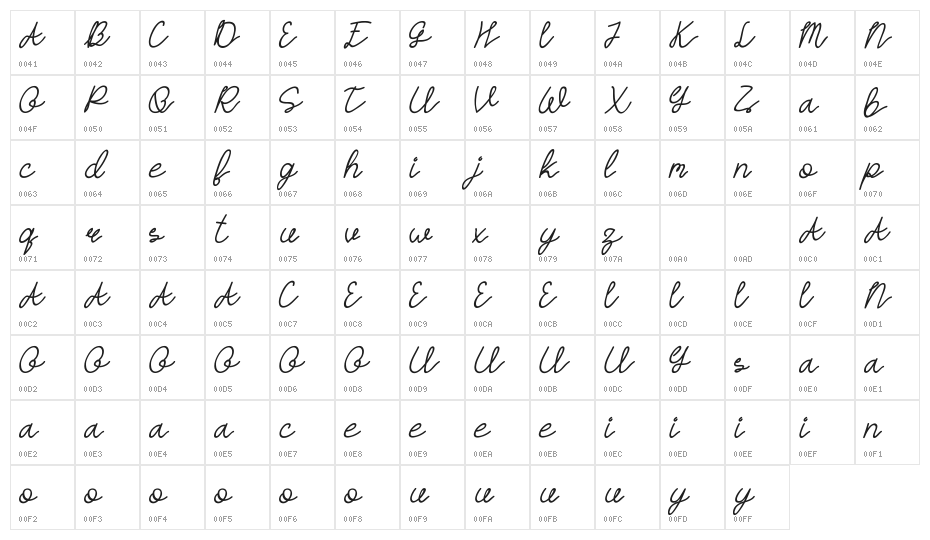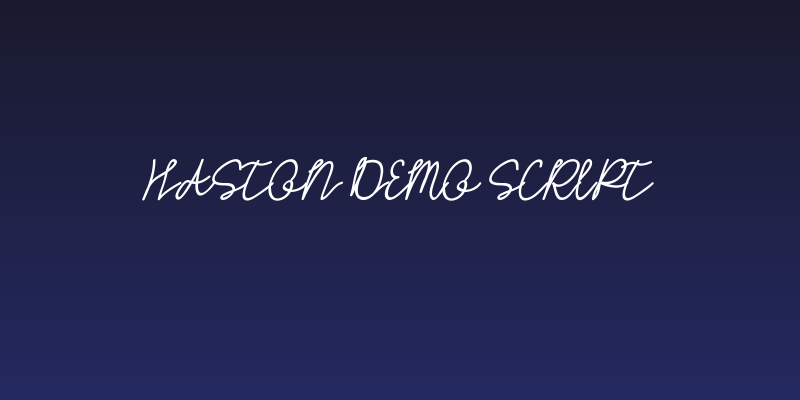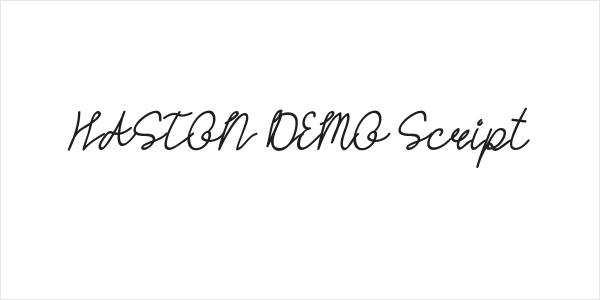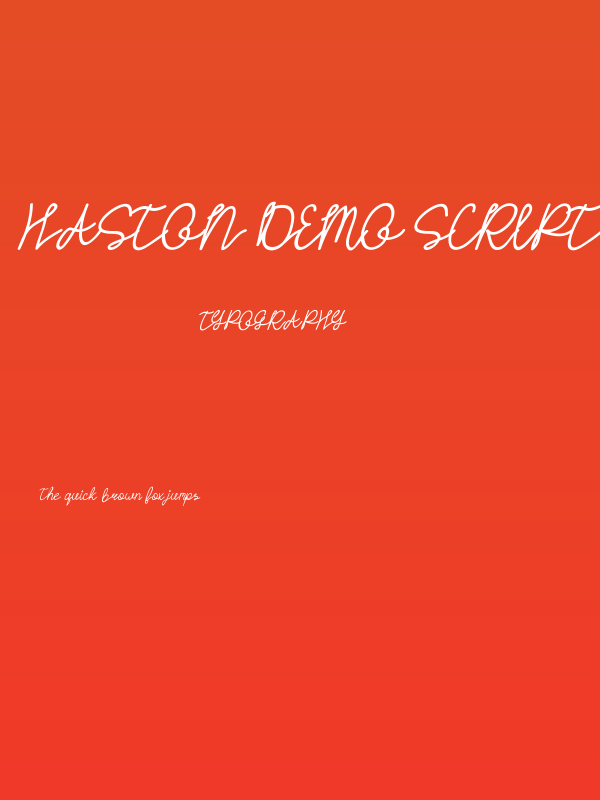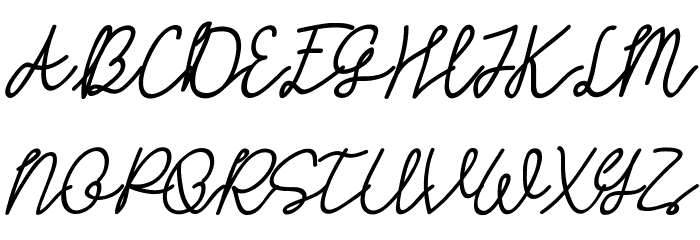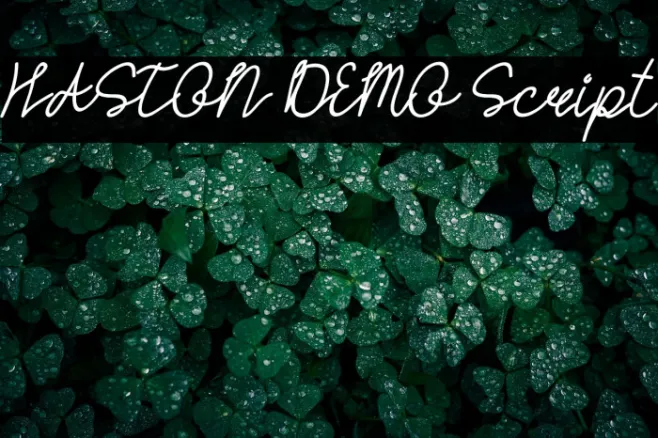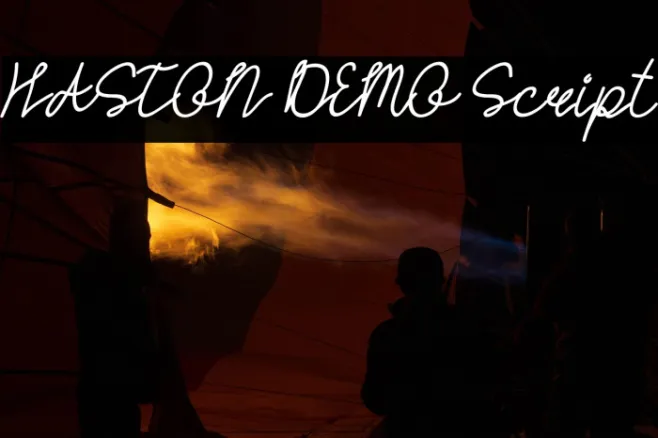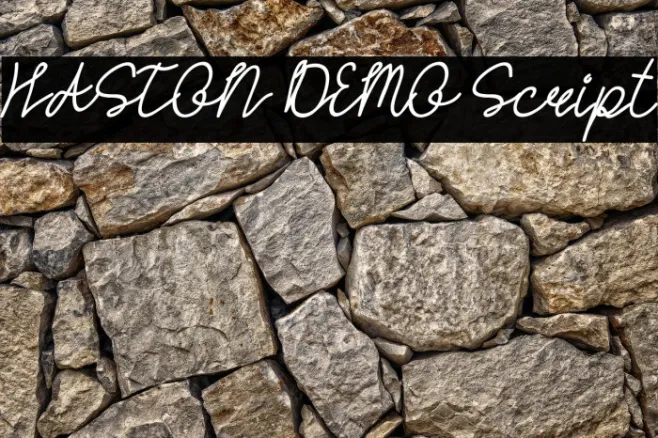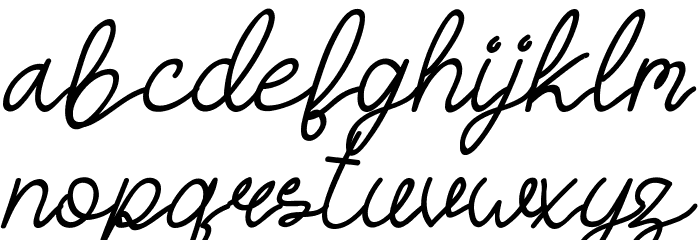
HASTON DEMO Script Font
HASTON DEMO Script Description
This script font exudes a fluid and elegant style, characterized by its cursive, handwritten appearance. The letters are interconnected, creating a seamless flow that mimics natural handwriting. The strokes are smooth and consistent, with a slight slant that adds to its graceful aesthetic. The uppercase letters are bold and prominent, while the lowercase letters maintain a delicate balance, offering a harmonious blend of formality and casual charm. The font's design is versatile, making it suitable for a variety of creative projects that require a personal touch.
| Proposed Projects | Ideal for wedding invitations, greeting cards, personal branding, and elegant logos. |